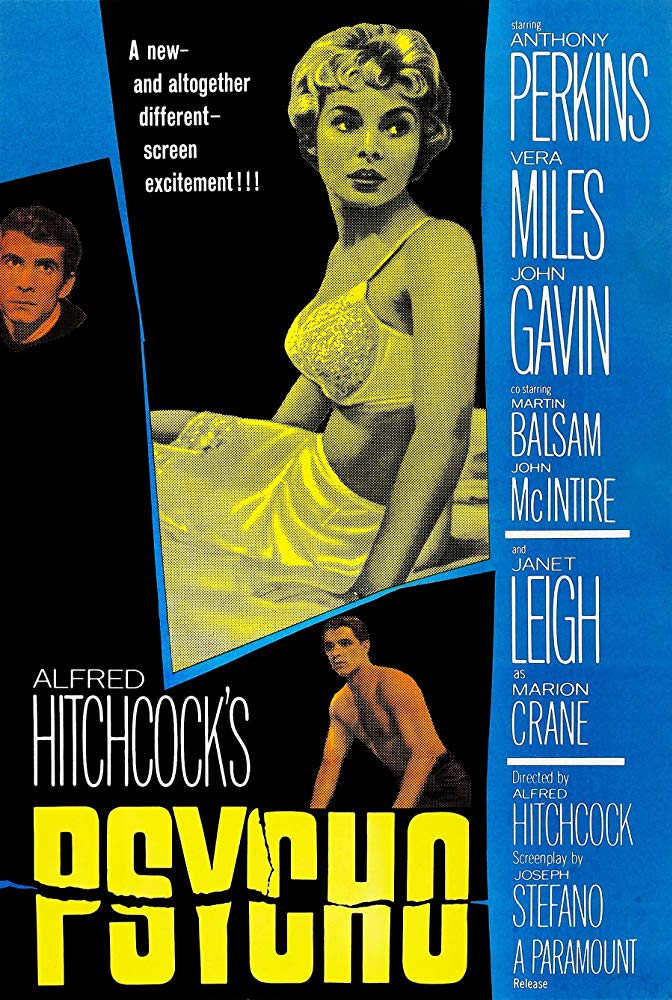
Psycho (film) Font
Fonts in UsePsycho is a 1960 American horror thriller film directed by Alfred Hitchcock. The movie follows a secretary who embezzles money from her employer, goes on the run, and finds herself at a secluded motel run by a young man and his mother with a dark secret.
Tony Palladino's iconic title for "Psycho" first appeared on the book cover of Robert Bloch's 1959 novel, which was later adapted into the film. Hitchcock purchased the lettering rights for the movie promotion, and Saul Bass's opening credits were influenced by Palladino's design, depicting the protagonist's homicidal madness with stark white letters on a black background. The closest matching font for the title is Compacta, designed by Fred Lambert for Letraset in 1963.